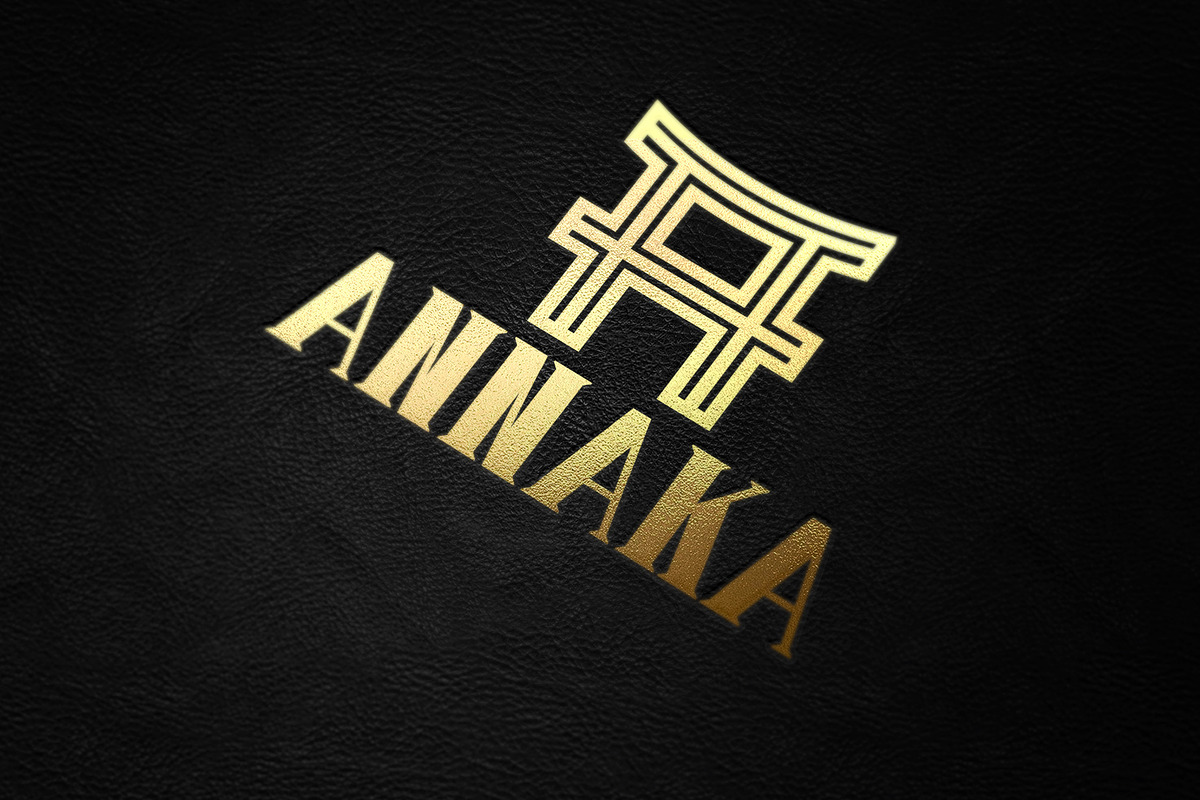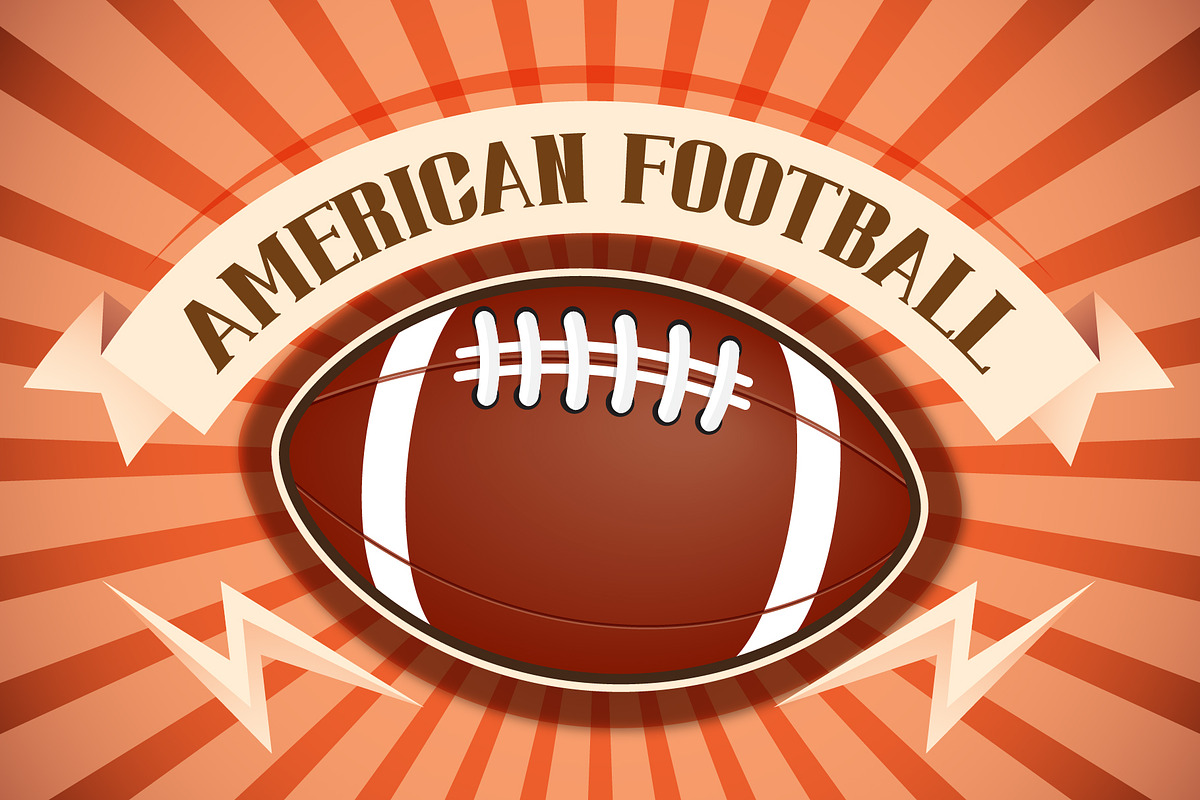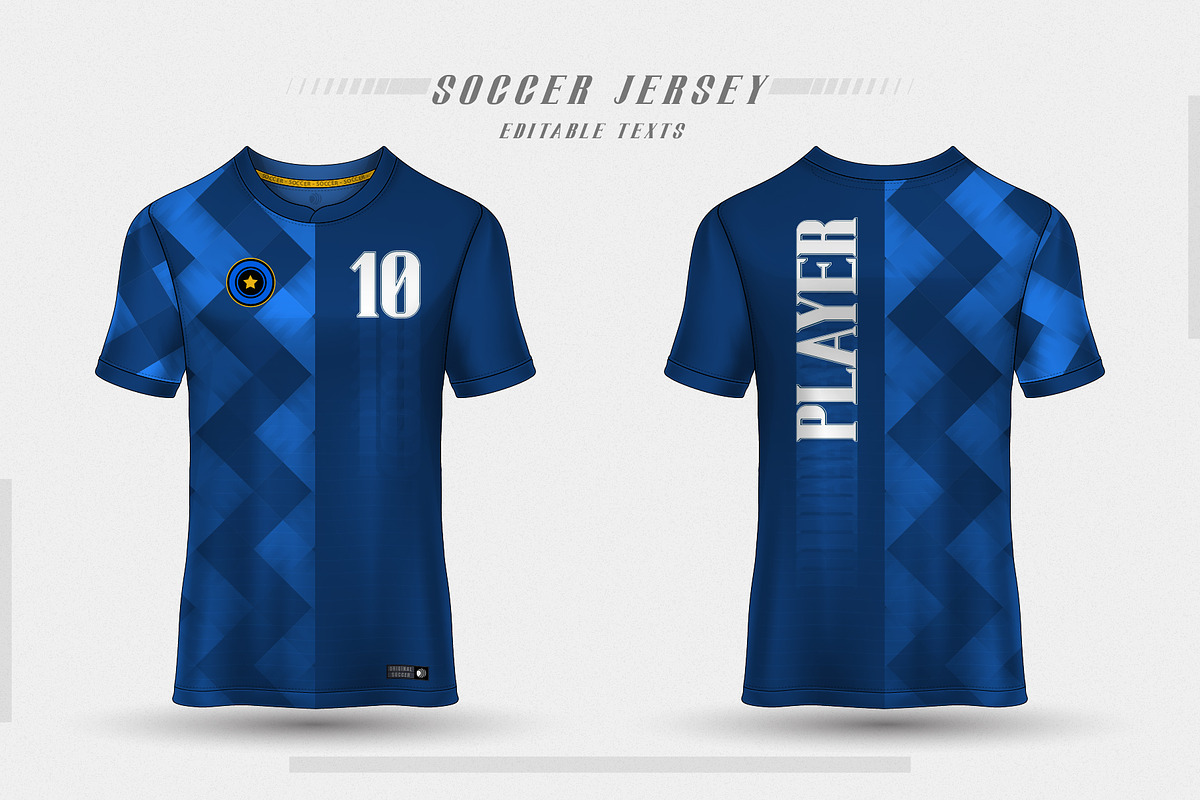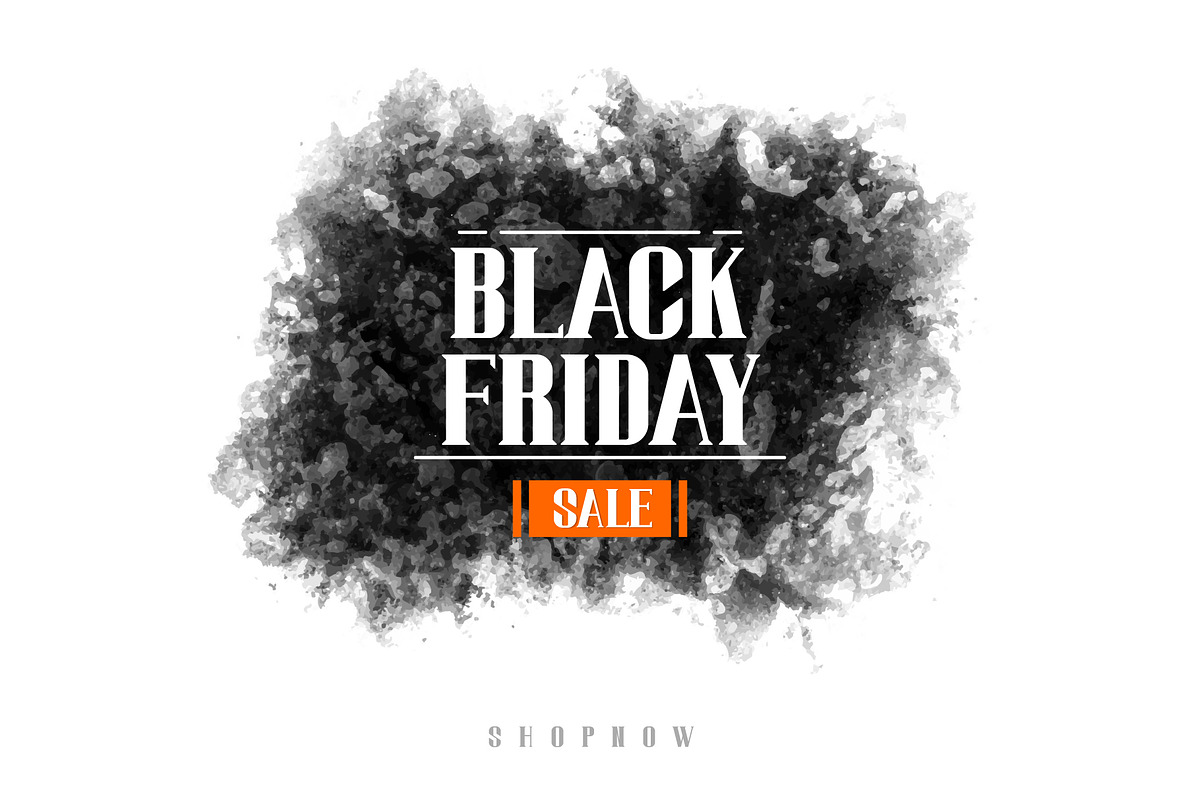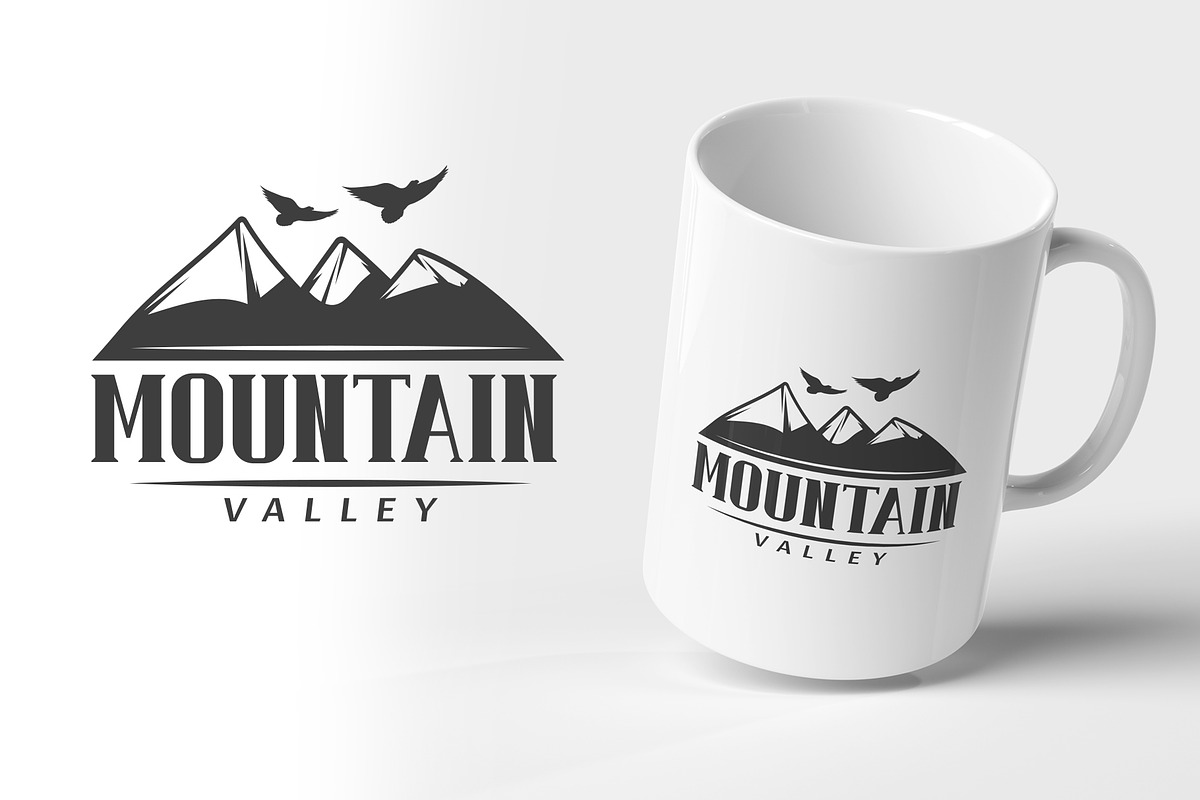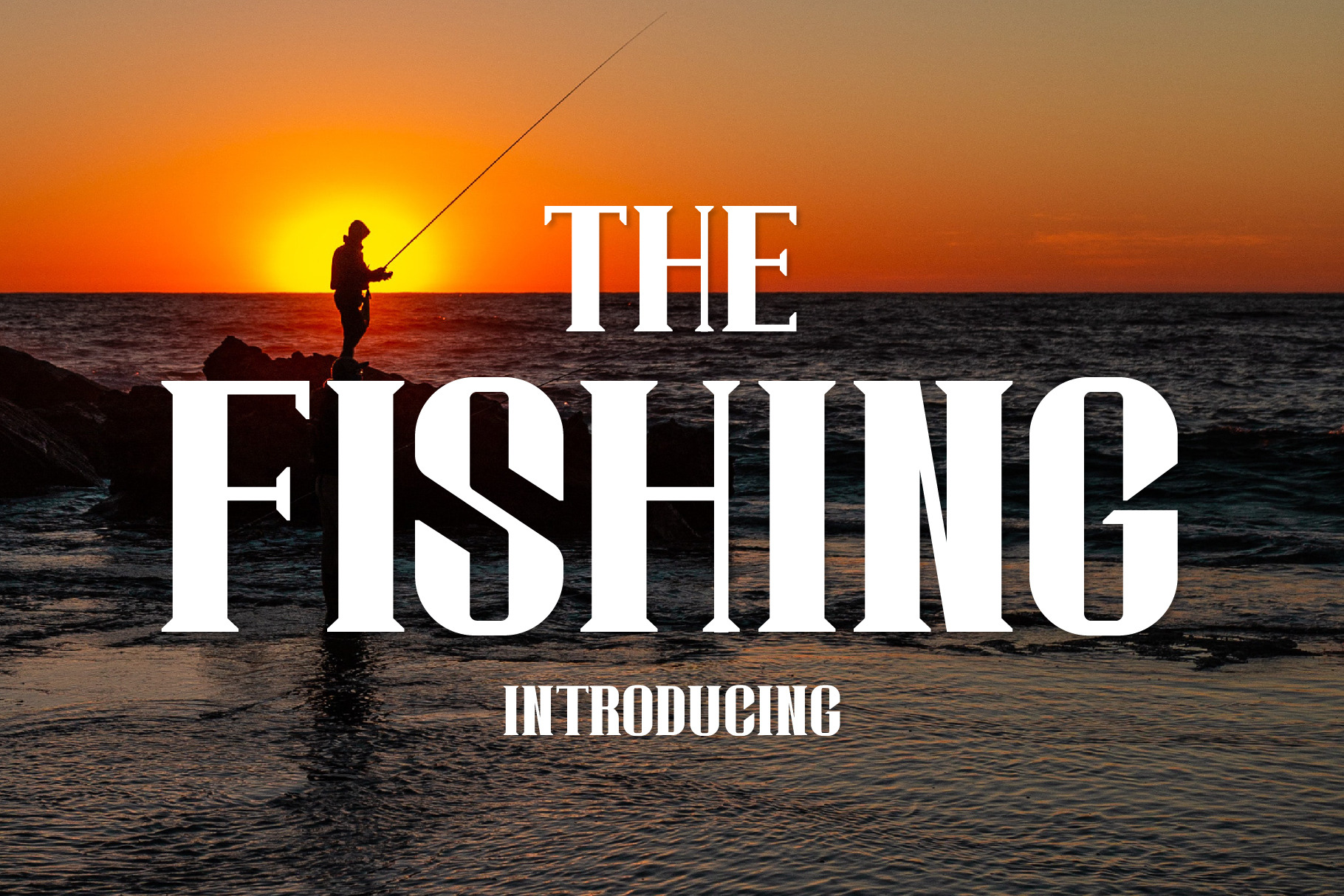
The Fishing Font
The Fishing is a strong and incredibly cool Slab Serif Fonts. Publications, logos, business cards, or printed on t-shirts, this font will look outstanding on everything, no matter the topic. This font will be an incredible asset to your fonts’ library, as it has the potential to elevate any creation.